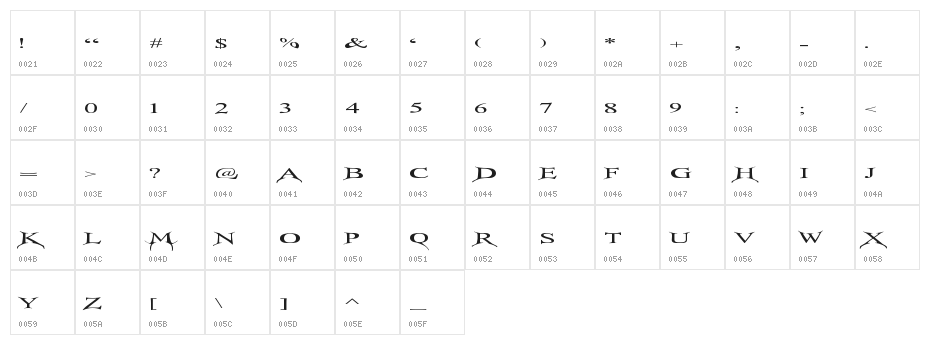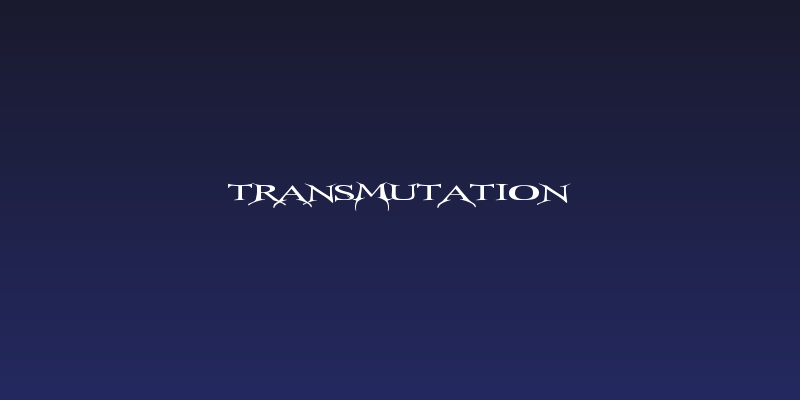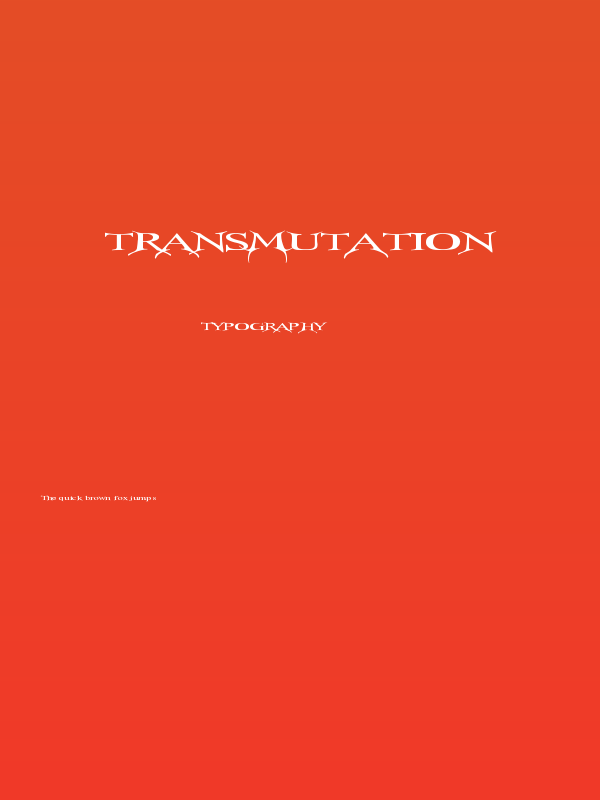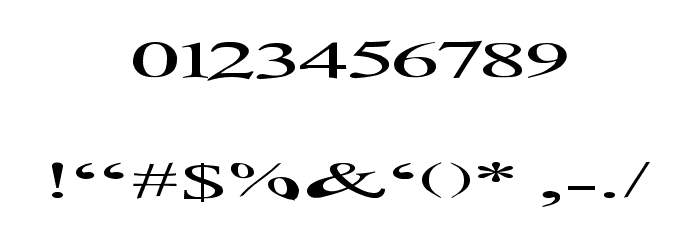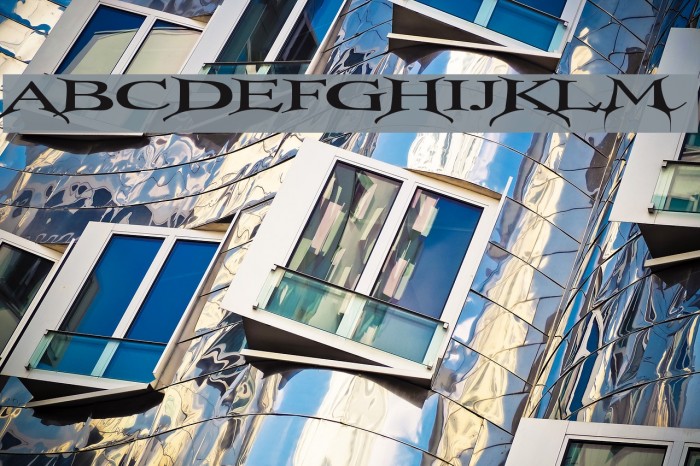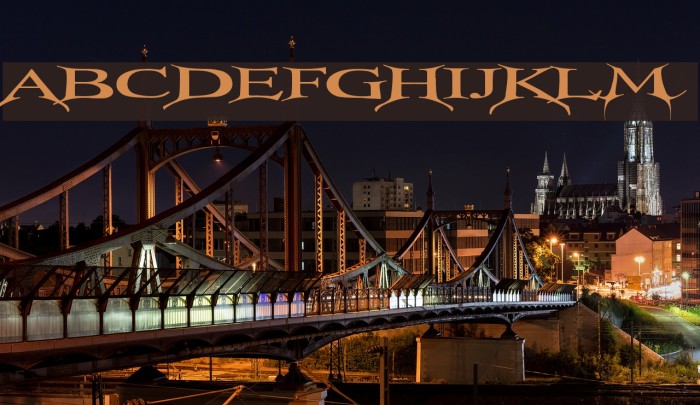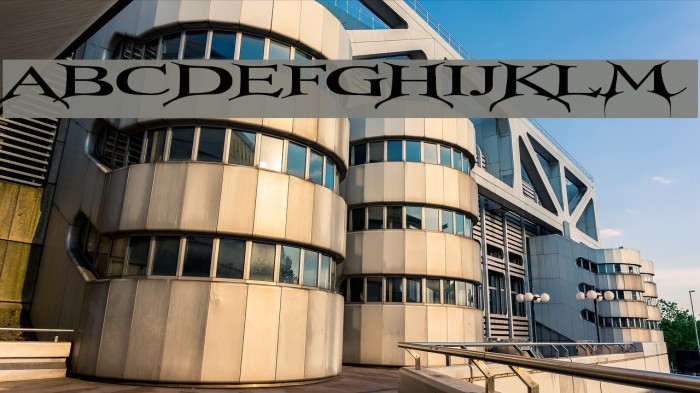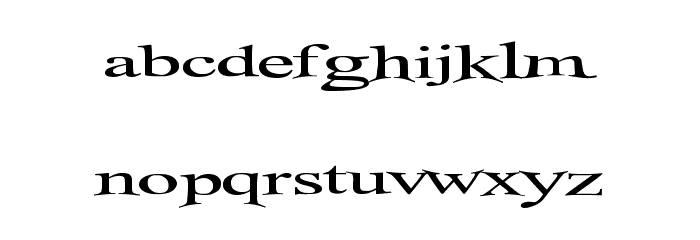
transMutation Font
transMutation Description
This font features a unique and edgy design, characterized by sharp, pointed serifs and an overall gothic appearance. The uppercase letters exhibit dramatic flourishes, giving them a striking and bold presence. The lowercase letters maintain a more subtle flair, yet still carry the distinctive sharpness. Numbers and special characters are crafted with the same attention to detail, ensuring consistency across all glyphs. The font's style is reminiscent of medieval or fantasy themes, making it ideal for projects that require a touch of drama and elegance. The contrast between thick and thin strokes is medium, providing a balanced yet dynamic look.
| Overall Style | Gothic, Decorative |
| Proposed Projects | Suitable for fantasy book covers, gothic-themed posters, or branding for alternative music bands. |